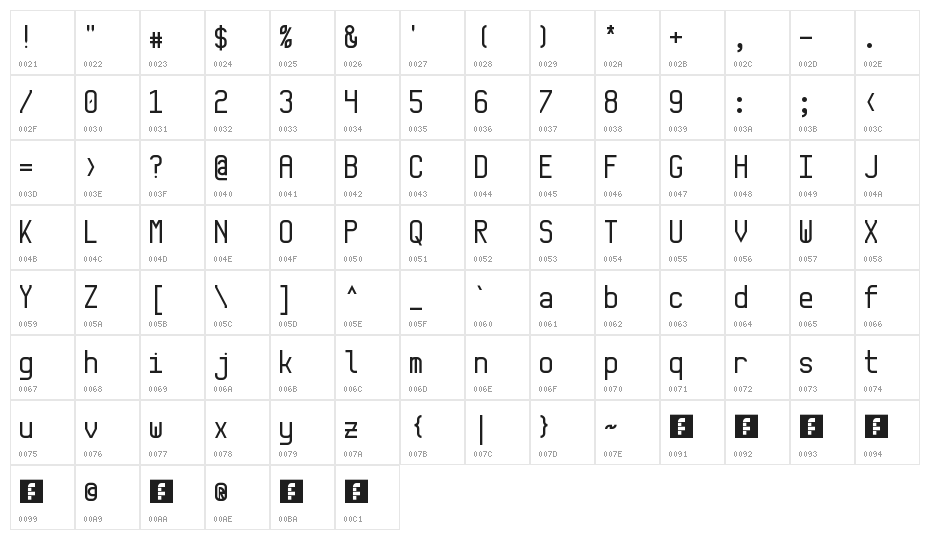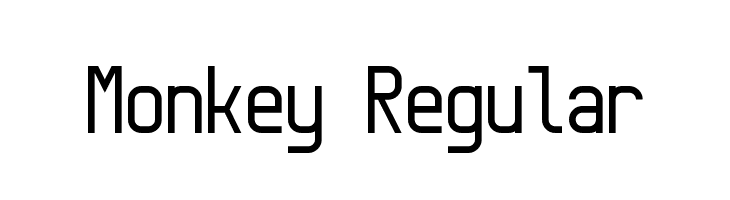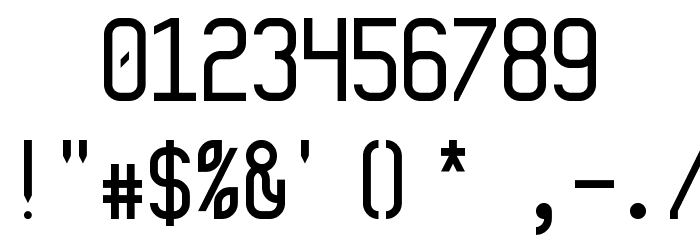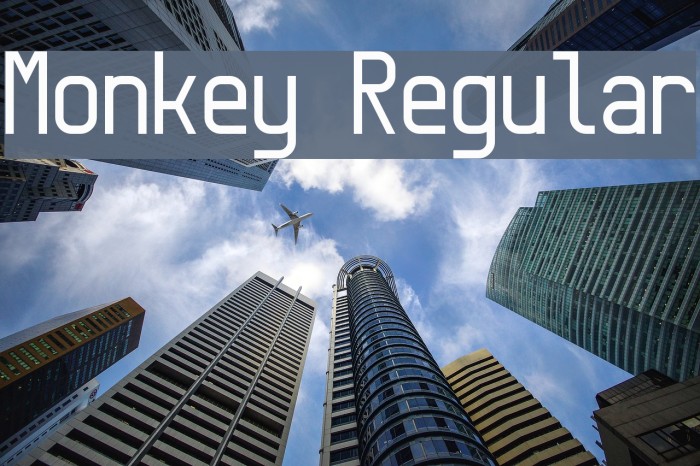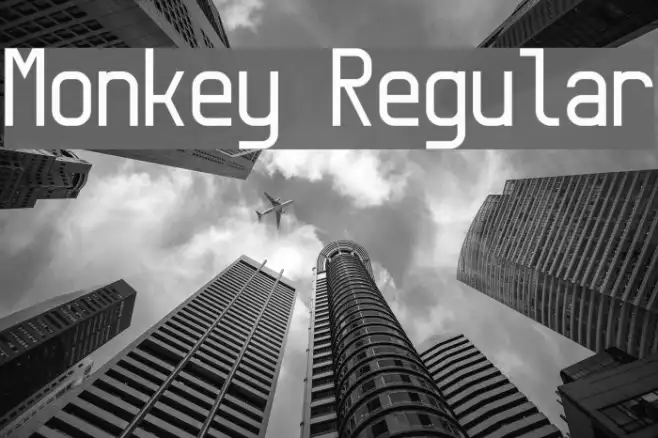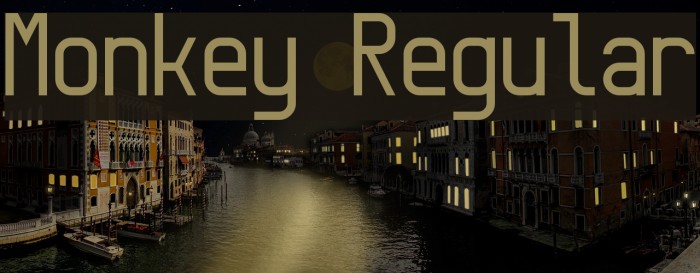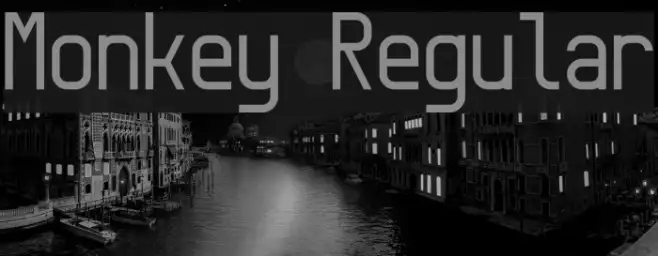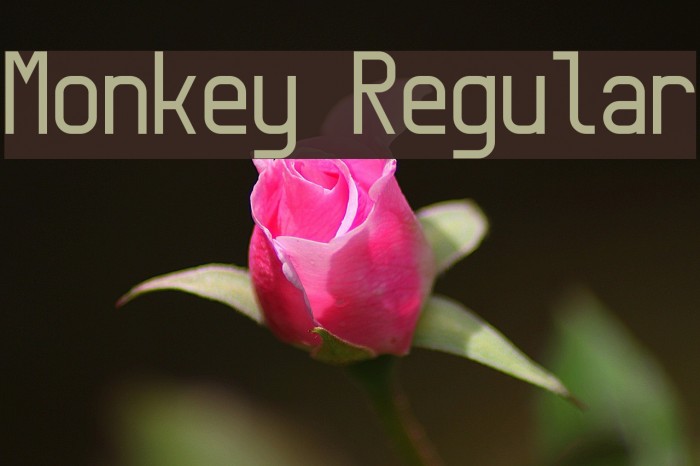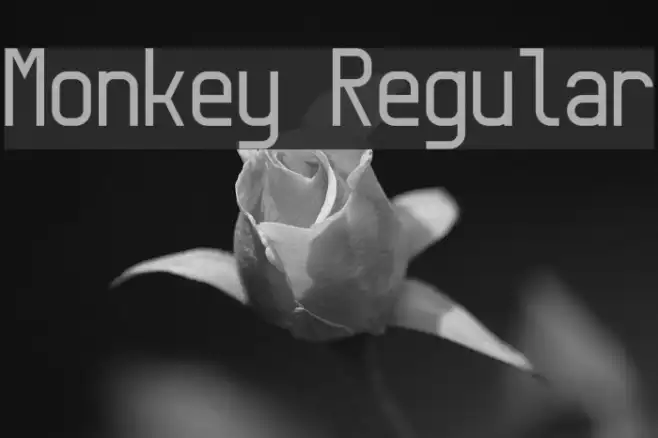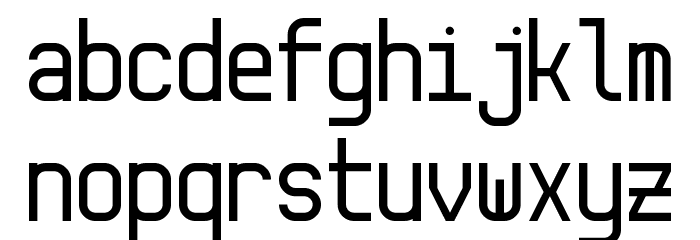
Monkey Regular Font
Monkey Regular Description
This font features a clean and modern aesthetic with a geometric sans-serif style. The characters are uniform in width, providing a monospaced appearance that enhances readability. The uppercase letters are tall and narrow, while the lowercase letters maintain a consistent height, contributing to a balanced look. The numerals are distinct and clear, making them suitable for data presentation. Special characters are well-defined, adding versatility to the font's usage. The overall design is minimalistic, with a focus on clarity and precision, making it ideal for digital interfaces and print media.
| Use Case | Headlines, Body text, Logos, Digital interfaces |
| Proposed Projects | Ideal for coding environments, digital interfaces, technical documentation, and modern branding. |